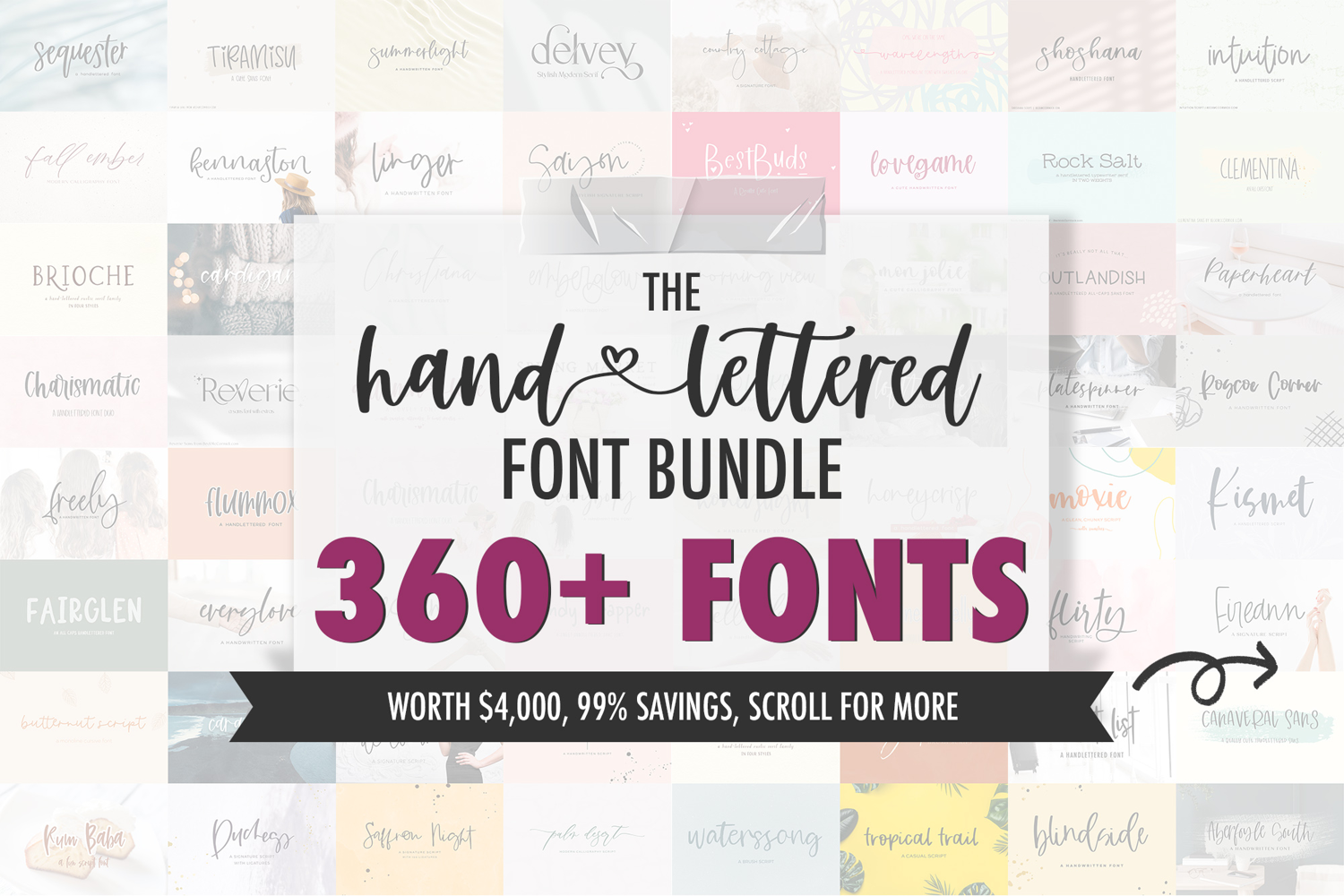
The Handlettered Font Bundle - Over 360 Fonts!
This bundle includes rustic fonts, farmhouse fonts, beautiful script fonts, modern calligraphy fonts, cute fonts, quirky fonts, typewriter fonts, display fonts, sans fonts, and serif fonts! Use as Cricut fonts, Procreate fonts, Illustrator or Photoshop fonts, or even with your Canva Pro account. These fonts can also be used as Procreate fonts, with the Affinity app, in Silhouette Studio, or with Glowforge. Are you a digital planner lover? Use as Goodnotes fonts, Notability Fonts, or with the preferred planner app of your choice. You can also install on your Kindle Paperwhite 2 or later to use as a Kindle font to jazz up your latest spicy read.
· Aberfoyle South
· Absolute Zero
· Absolutely
· Accessory
· Actually Maybe
· Affaire de Coeur Script Font
· Aftertaste
· Alpines
· Angeleno Brush Script
· Apple Blossom
· Aquariusly
· Auttie Script Font with Heart Swashes
· Autumn Love Font Duo
· Azusa Sans Font Trio
· Backyard Garden Script Font
· Ballast
· Barcelona Nights Signature Script
· Beach Day Script Font
· Beach Market
· Beach Town Script
· Beachwild
· Belovedly Signature Script Font
· Best Buds
· Better Late
· Bitte Handwriting Script Font
· Bless Your Heart Font Trio
· Blindside
· Blossomberry Script Font with Swashes
· Blossomly
· Bolabos Script Font
· Boneyard
· Boogie Down! Handlettered Sans Font
· Boondoggle
· Bourbons
· Bowie Girl
· Brauhaus Script Font
· Breakwater Triangle Sans Font
· Brioche Rustic Serif Font Family
· Bubbly
· Bucket List Script
· Buttermilk Biscuit Funky Hand-Lettered Font
· Butternut Script
· Calamity Street
· Cali Coast Script Font
· Canaveral Sans
· Candy Queen Sans
· Candy Wrapper Sans
· Caramel Creme
· Caravanner Script Font
· Cardigan Script
· Catalunya Script
· Charismatic
· Cheesecakery
· Cherokee Rose Calligraphy Script
· Cherry Grove
· Chicken and Waffles Delicious Font Duo
· Christiana
· Christmas Market Script
· Clarke
· Clementina
· Cloverdale
· Comfy Sweater Script
· Conquistador Serif Font
· Coquina Clam Hand-lettered Font
· Cottage Way
· Country Cottage
· Country Creek
· Cream Puff
· Da Beach Hand-Lettered Font
· Dashwood
· Dear Journal Calligraphy Font
· Delish Serif Script Font
· Delvey
· Dexter
· Distillery
· Dream Believer
· Dream Bounce Calligraphy Font
· Dreamwild
· Duchess Script
· Dynamite
· Effortlessly
· Eireann Signature Script Font
· El Capistrano Serif
· Elysianne
· Emberglow
· Emptynest
· Essence
· Ethanol Sans Font
· Everlasting
· Everybody Script
· Everylove
· Fairglen Sans
· Fall Ember Calligraphy Script
· Fallbrook Avenue
· Farmhouse Country Rustic Script
· Farmhouse Family
· Farmhouse Life Duo
· Farmhouse Nativity
· Featherstitch
· Femme Fatale Modern Calligraphy Script
· Fernwild
· Fête Casual Script Font
· Figmented
· Flashing
· Flimsy
· Flirty Script Font
· Florida Girl Sans Font Family
· Florida Girl Script & Sans Duo
· Flower Market
· Flummox Sans
· Forsythe
· Foxbrook
· Freely
· Frick and Frack
· Friday Vibes Script
· Galaxyrise
· Garmisch
· Generally
· Gin and Tonic Duo
· Gingersnap Script
· Glamper Sans
· Glideaway
· Globetrotter Signature Script
· Goodspring
· Grand Strand
· Grassland
· Grassroots Typewriter
· Grateful Season
· Gulfstream
· Habanero Jelly Sans
· Harvester
· Heartfire
· Hearth
· Heartsound
· Hello Darling
· Hello Dear
· Hey Pumpkin Script
· High Street
· Highborn
· Highlandia
· Highlight
· Homebrewer Sans and Outline Font Duo
· Honey Punch
· Honeycrisp
· Honeyfarm
· Honeyflame
· Honeyland
· Honeylight
· Honeysugar
· Honeywoods Storybook Sans
· Humblebrag
· Hypnotic
· Ignited
· Impulsive Script
· Inkerly
· Intuition
· Inverness Signature Script
· Irton Inline + Solid Sans Fonts
· Island Sun
· Island Vibes
· Islay
· Jam Jar Script
· Jubilantly
· Junipero
· Katiekate Calligraphy Font Duo
· Kennaston
· Key Largo Brush Script
· Kirsteny Hand-lettered Sans Font
· Kismet Handwritten Script Font
· Knick Knack
· La Boheme Script
· Lanarkshire
· Latchkey
· Learnfree
· Lemonlove
· Lilykins Playful Sans Font
· Lime Bitters
· Linger Script
· Loch Lomond
· Lofthouse
· Lone Memory
· Looking Glass
· Lovegame
· Lovelier
· Lush Typeface
· Magic Maker
· Magnolia Tree Rustic Serif Font Duo
· Make Fancy
· Makewild
· Mardi Gras Party Font
· Marigold Market
· Marshland
· Marzipan
· Meadowsweet
· Merry Everything
· Miami Vibes Art Deco Sans Font
· Mindless Sans
· Minnowbrook
· Mistral
· Molokai
· Mon Jolie
· Moonbaby
· Moonlighter
· Moonwyld
· Morissette Script
· Morning View
· Moxie Modern Calligraphy Font
· Mystic Heirloom
· Nightwatch
· Nitwit Sans
· Nonchalant
· Oakley May Script
· Offing
· Offshore
· Oh, Savannah! Script
· Okay And
· Orange Grove Script Typeface
· Outlandish
· Palm Desert Modern Calligraphy Font
· Paperdream
· Paperheart
· Parallaxes
· Parkchester Cursive Font
· Party Dress Cursive Font
· Patisserie Script
· Persnickety
· Pineblossom
· Pines Avenue
· Platespinner
· Plum Cobbler Script
· Plumeria Brush Script Font
· Promise
· Pumpkin Chunk Sans
· Punchdrunk
· Raintree
· Reliably
· Resfeber Script
· Resplendent
· Reverie
· Reynolds Square Calligraphy Font Duo
· Ridonkulous Sans
· River Road Typewriter Serif
· Riviera Mexicana Script
· Rock Salt
· Roscoe Corner Script
· Rose Bud Whimsical Sans Font
· Roseborough
· Rosecity
· Rougir
· Routinely
· Rum Baba Script
· Rustic Market Sans
· Rusticity
· Saffron Night Signature Script Font
· Saison Script
· Salt and Sea Calligraphy Font
· Saltwater
· Sanibel Brush Font
· Sassafras Sans - Regular and Bold Weights
· School Lunch
· Sea Breeze Signature Script Font
· Sea Mist
· Sedona Script
· Septiembre Script
· Sequester
· She Sells Seashells Cursive Font
· Shoshana
· Sierra Gorge
· Slainte
· Small Things
· Solstice
· Souls Wyld Signature Script and Sans Trio
· Sparkleshine
· Spring Market Rustic Farmhouse Serif
· Springbreak Script Font
· Springlet
· Starfield
· Starstruck
· Starstuff
· Stay Mild
· Staycation Script Font
· Stirling Cottage
· Streamfield
· Sublimity
· Sugar Dumplin' Sans + Serif Font Duo
· Sugared Dreams
· Sugarlove Calligraphy Font
· Sugaryum
· Suggestible
· Summer Fling
· Summer Market Rustic Farmhouse Sans
· Summer Paradise
· Summerback
· Summercamp
· Summerfelt
· Summerlight
· Sunchaser
· Sunfall
· Sunraiser
· Sunshower Script
· Supernaturally
· Sweet Jasmine Handlettered Script
· Sweet Toast
· Tallahassee
· The Glen Brush Script
· The Island Sans Font
· The Travelers
· Tiramisu
· Touseled
· Trickster
· Tropical Trail Marker Font
· Tumbleweed
· Tundra
· Turbulent
· Twinkly
· Unbound
· Unbridled Script Font
· Warmth Casual Script
· Waterssong Brush Script
· Wavelength
· Westerburg
· Whiskey Girl Signature Script
· Wild Children Rustic Font Duo
· Wild Honey
· Wildblossom
· Wildmaker
· Wildstar
· Willowbrook
· Willowish
· Windswept Heart Script
· Wishmaker
· Wisterian
· Wyldebrook
· Wyldling Script Font
· Yesteryear
· Zeitoon Sans